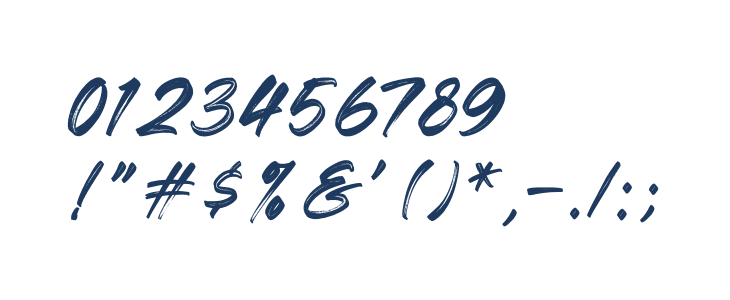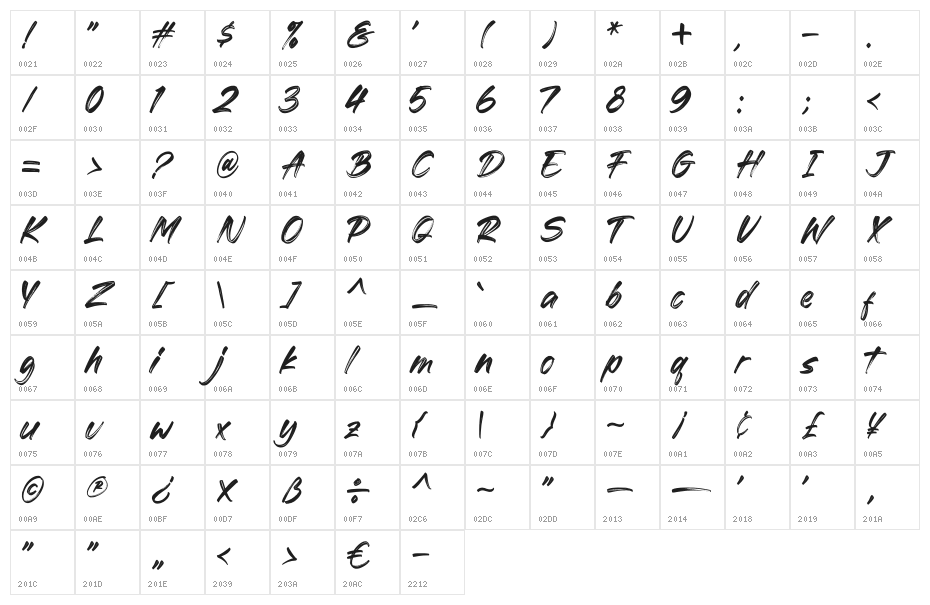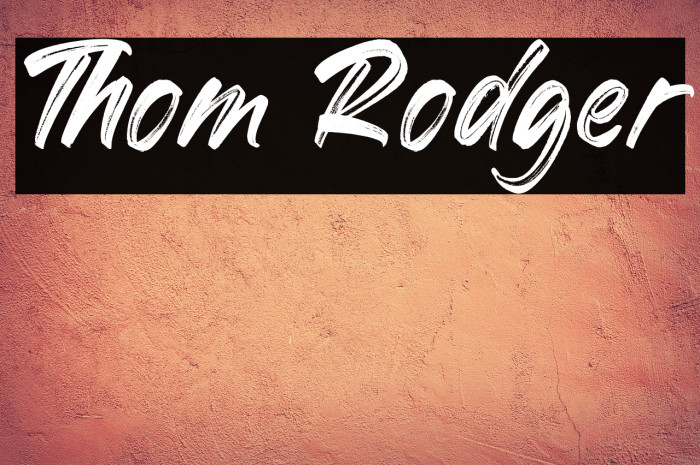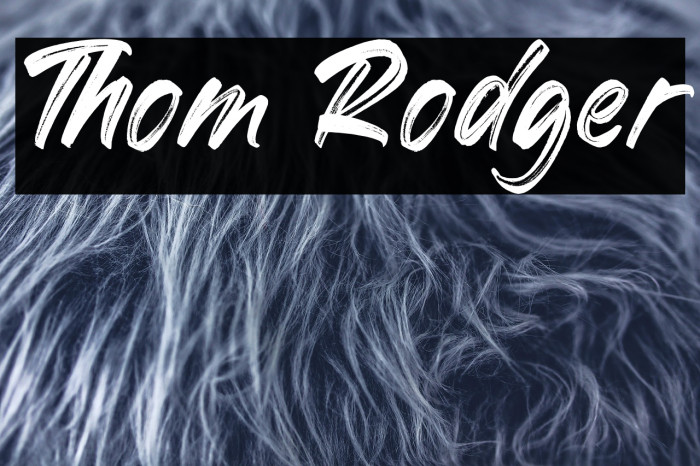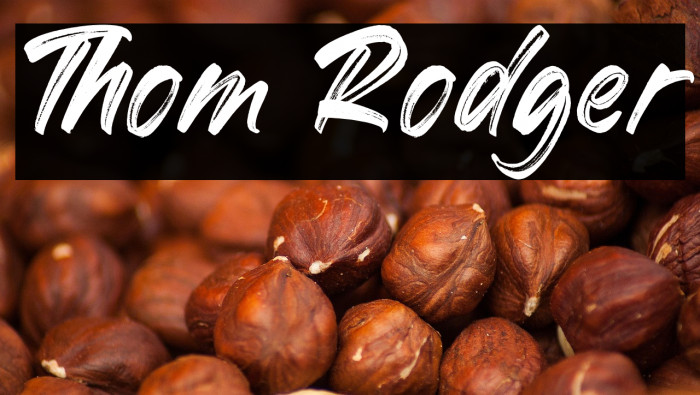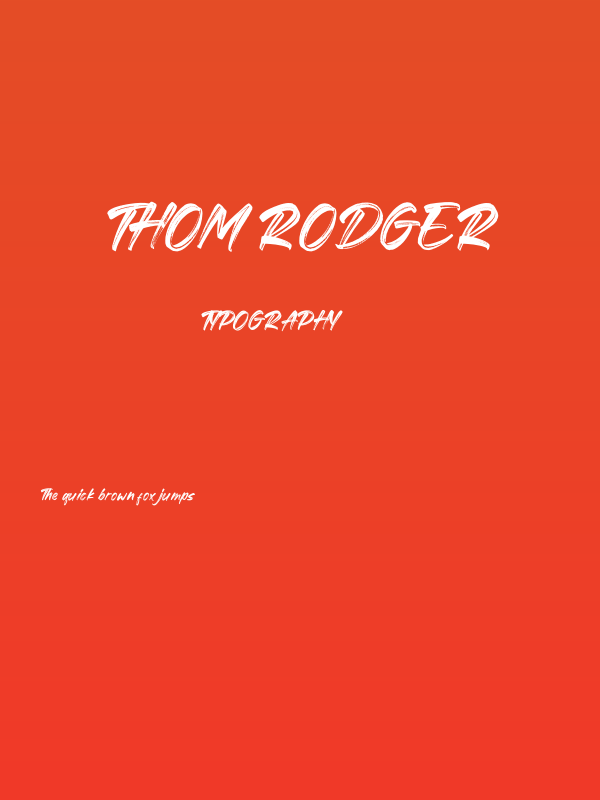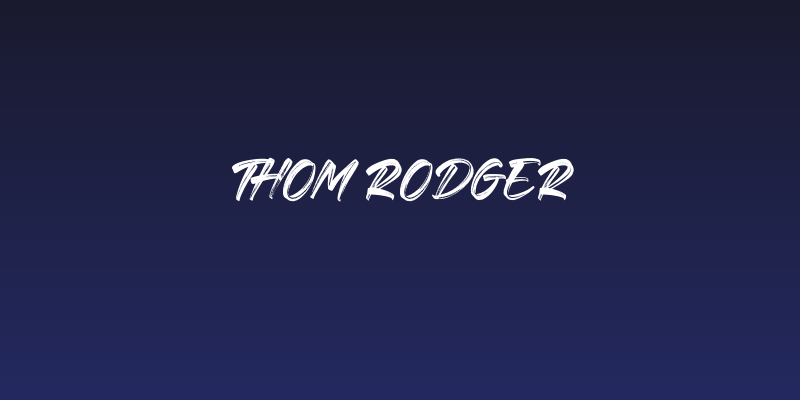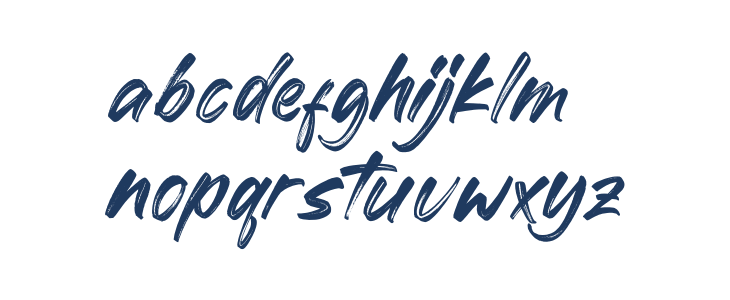
Thom Rodger Font
Thom Rodger Description
This font features a dynamic and energetic script style with a hand-drawn appearance. The letters are bold and expressive, with a brush-like texture that adds a sense of movement and flair. The uppercase and lowercase characters are well-balanced, maintaining a consistent flow throughout. The numerals and special characters follow the same lively style, making them cohesive with the alphabet. This font's unique aesthetic is perfect for projects that require a personal touch or a creative edge.